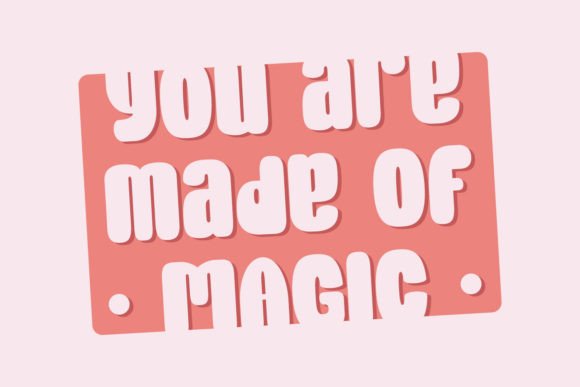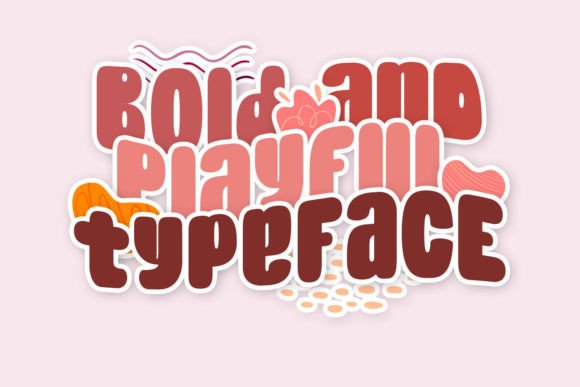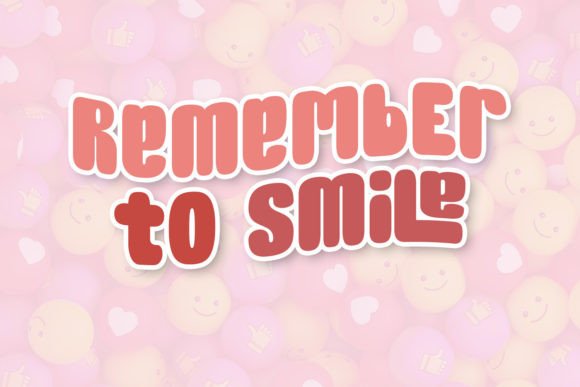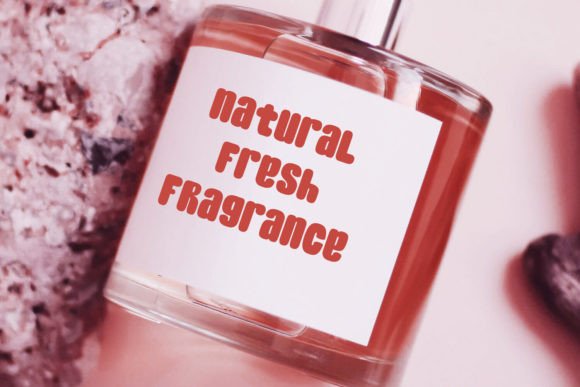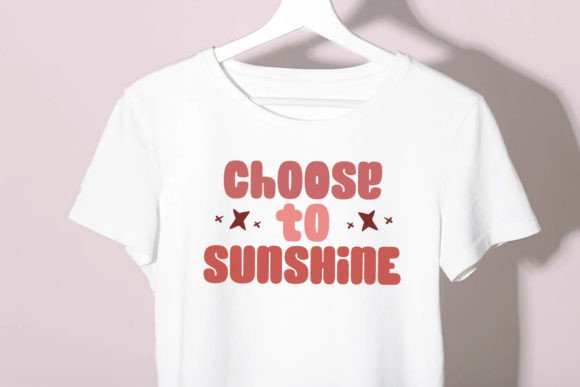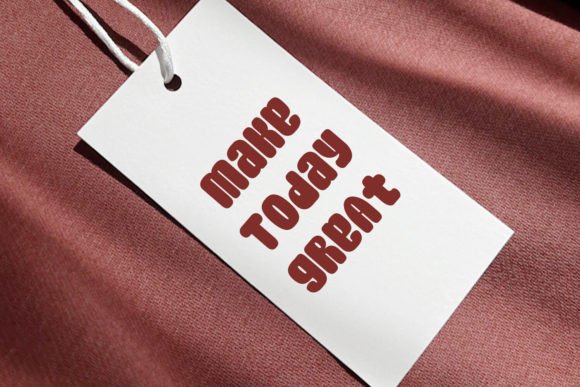
Introducing Beanie Fresh Font: The Ultimate Display Font for Your Creative Projects
Are you a designer or crafter looking for a font that can add a touch of warmth and charm to your creative projects? Look no further than Beanie Fresh Font! This delightful display font is designed to radiate a playful style that is sure to capture the attention of your audience. In this article, we’ll take a closer look at the features and benefits of Beanie Fresh Font and explore how it can elevate your designs.
The Design Behind Beanie Fresh Font
Beanie Fresh Font is meticulously designed with rounded shapes that add a soft and inviting vibe to your text. Each letter is carefully crafted to create a sense of warmth and approachability, making it perfect for designs that require a friendly and approachable tone. The font’s playful style is sure to bring a smile to your audience’s faces and make your designs stand out from the crowd.
The Key Features of Beanie Fresh Font
So, what makes Beanie Fresh Font so special? Here are some of its key features:
- Rounded Shapes: The font’s rounded shapes give it a soft and inviting vibe that is perfect for designs that require a friendly tone.
- Thick Weight: The thick weight of the font adds a sense of solidity and presence, making it perfect for display text and headlines.
- Low Contrast: The low contrast of the font creates a gentle and easygoing texture that is easy on the eyes.
Why Choose Beanie Fresh Font?
So, why should you choose Beanie Fresh Font for your creative projects? Here are just a few reasons:
- Unique Style: Beanie Fresh Font has a unique and playful style that is sure to make your designs stand out from the crowd.
- Versatility: The font is versatile and can be used for a wide range of creative projects, from branding and advertising to crafting and DIY projects.
- Easy to Read: The font’s low contrast and rounded shapes make it easy to read, even at small sizes.
How to Use Beanie Fresh Font in Your Designs
Beanie Fresh Font is easy to use in your designs, and here are a few tips to get you started:
- Use it as a Display Font: Beanie Fresh Font is perfect for display text and headlines, so use it to add a touch of personality to your designs.
- Pair it with Other Fonts: The font pairs well with other fonts, so feel free to experiment with different combinations to create a unique look.
- Experiment with Colors: Beanie Fresh Font looks great in a variety of colors, so don’t be afraid to experiment and find the perfect color for your design.
Beanie Fresh Font for Crafters and DIY Enthusiasts
Beanie Fresh Font is not just for designers – it’s also perfect for crafters and DIY enthusiasts who want to add a personal touch to their projects. Here are a few ideas for using Beanie Fresh Font in your crafting and DIY projects:
- Handmade Cards: Use Beanie Fresh Font to add a personal touch to your handmade cards and gift tags.
- DIY Signs: The font is perfect for DIY signs and posters, so use it to add a touch of personality to your projects.
- Crafting Tutorials: Use Beanie Fresh Font to create fun and easy-to-follow crafting tutorials that will engage and inspire your audience.
| Font Name | Beanie Fresh Font |
| Author | Yumna_Type |
In conclusion, Beanie Fresh Font is a delightful display font that is sure to add a touch of warmth and charm to your creative projects. With its rounded shapes, thick weight, and low contrast, it’s perfect for designers and crafters who want to create friendly and approachable designs. So why not give Beanie Fresh Font a try and see how it can elevate your designs?